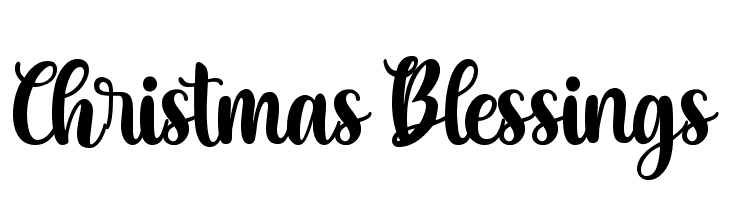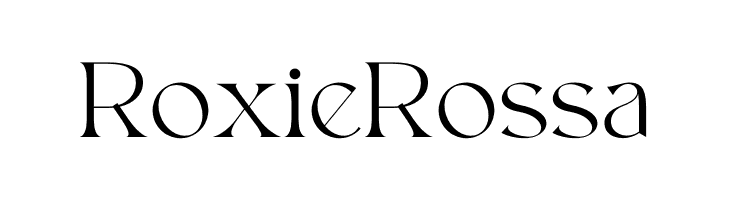
Bold, outlined font with a playful, blocky style.
A bold, geometric font with arrow-like extensions for a dynamic look.
A bold, artistic font with a playful, irregular style.
A modern, geometric font with elegant, angular uppercase and smooth lowercase letters.
A bold, brush-style font with dynamic, expressive strokes.
A bold, geometric font with a halftone effect, offering a retro-futuristic style.
A bold, playful font with thick, rounded letterforms and exaggerated serifs.
A fluid and elegant script font with a natural, cursive flow.
A bold, geometric font with a futuristic, stencil-like design.
A bold slab serif font with strong, well-defined characters and a robust presence.